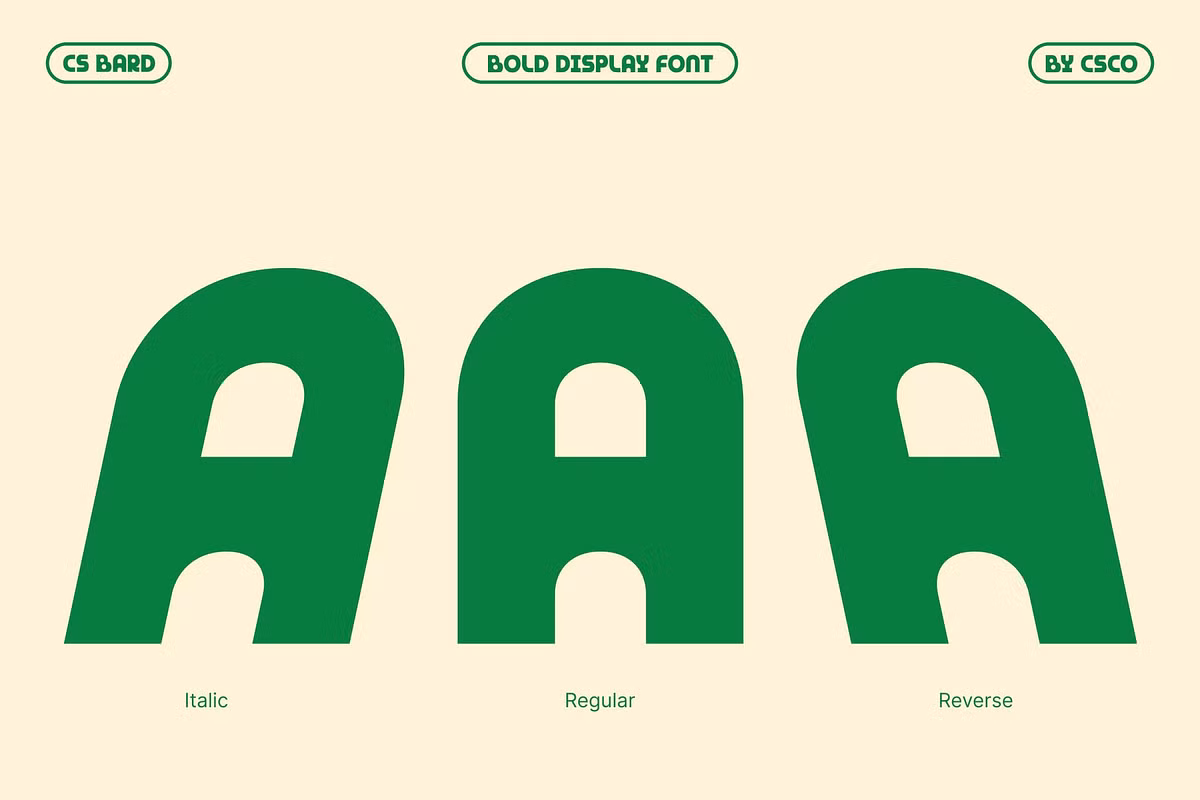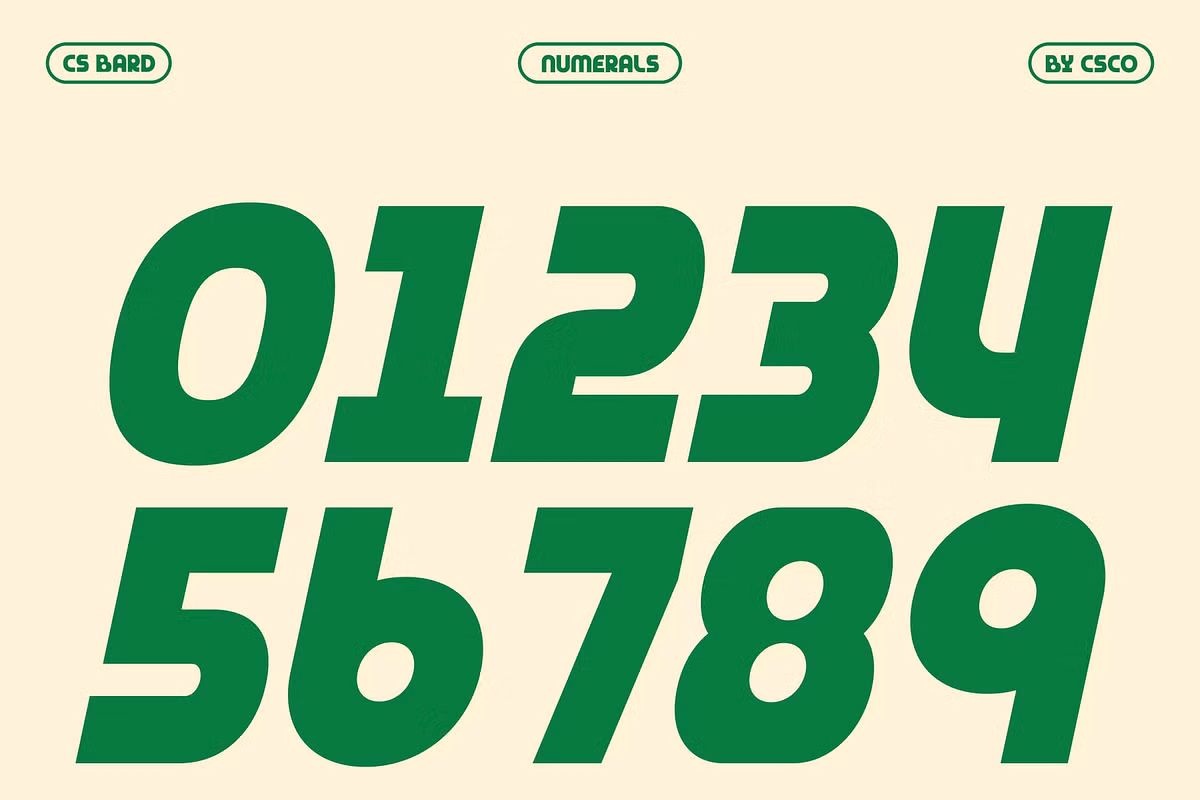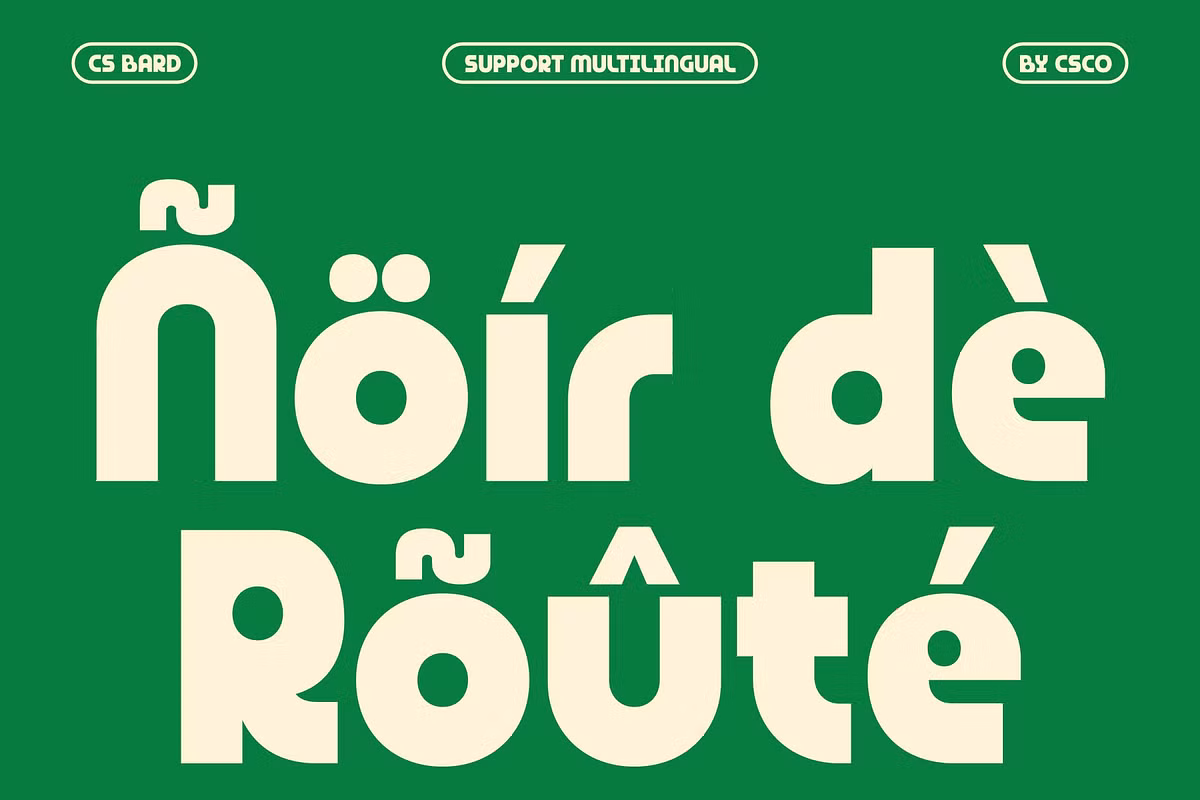
CS Bard: Bold Display Font for Eye-Catching Creative Designs
Meet CS Bard, a super cool font that’s perfect for making a big impact in your designs. It’s got a really modern look, but it’s also lots of fun and playful, which makes it great for all sorts of creative projects. In this article, we’ll take a closer look at what makes CS Bard so special, including its design style, the characters it includes, and how you can use it in your work. We’ll also give you some tips on how to pair it with other fonts and what you need to know about licensing. By the end of it, you’ll be an expert on how to use CS Bard to make your designs really stand out.
Whether you’re working on a website, a poster, or something else entirely, CS Bard is a great choice if you want to grab people’s attention and make a lasting impression. Its unique style is sure to add some extra excitement to your project, and with its versatile character set, you can use it for all sorts of different things. So let’s dive in and learn more about this amazing font!
Design Style of CS Bard
The CS Bard design has a really bold and sturdy look that gives off a sense of confidence and personality. It’s got thick lines and geometric shapes that make it look super modern. This font is great for when you need to grab people’s attention right away, so it’s perfect for things like headlines, posters, and branding stuff. The way it looks is really striking, and it can add a lot of personality to your designs.
Whether you’re making a poster or a logo, CS Bard is a great choice if you want something that’s going to stand out and make a statement. CS Bard has a strong foundation, but it’s the little details that give it a fun and playful feel. These special touches add a lot of personality to the design, making it a great choice for projects that want to seem friendly and full of energy.
It’s perfect for designing things like fun events or professional campaigns, because it mixes being bold with being easy to get along with.
Character Sets and Features
CS Bard comes equipped with a variety of character sets and features that enhance its usability and versatility. The font includes:
- Uppercase and lowercase characters
- Numerals and punctuation (OpenType Standard)
- Accents, supporting multilingual characters
- PUA encoding for ease of use
With CS Bard, designers have everything they need to create a wide range of designs that are inclusive and diverse. It doesn’t matter if you’re making content for people in your local area or for a global audience, CS Bard has the tools to help you get the job done. This means you can focus on making great content that works for everyone, no matter where they’re from.
Use Cases for CS Bard
CS Bard is really good at a lot of things, which makes it perfect for many different creative projects. Let’s take a look at some of the best ways to use it.
- Product Packaging: CS Bard is a great choice for product packaging because it’s bold and really grabs your attention. This makes it perfect for labels and packaging designs that need to stand out in a crowded store.
- Social Media Graphics: Use CS Bard for headlines and promotional content on platforms like Instagram and Facebook to grab attention and engage your audience.
- Editorial Layouts: Incorporate CS Bard into magazine spreads or online articles to create striking headlines that draw readers in.
This font is perfect for making your ads stand out, whether it’s on flyers, posters, or big banners. It gives your promotional materials a fresh and modern look that grabs people’s attention.
Pairing Suggestions for CS Bard
When working with CS Bard, pairing it effectively with other typefaces can elevate your overall design. Here are some pairing suggestions:
- Serif Fonts: Pair CS Bard with a classic serif font like Georgia or Times New Roman for a sophisticated look. The contrast between the bold display and traditional serif adds depth to your designs.
- Sans-Serif Fonts: Combine CS Bard with a clean sans-serif font like Helvetica or Arial for a modern and minimalist aesthetic. This combination works well in professional settings.
- Script Fonts: If you want to add a touch of fun and playfulness to your design, try pairing CS Bard with a script font like Pacifico or Great Vibes. This combo works really well for things like invitations or when you’re creating a brand that’s all about being creative.
Trying out different combinations can really help you strike the right balance that matches the bold feel of CS Bard and boosts the overall look of your project. You can play around with various pairings to see what works best and creates a visually appealing effect.
Whether you’re working on a big corporate project or something more creative, CS Bard is the perfect choice if you want to create designs that really grab people’s attention and stick in their minds. It’s all about making your message stand out and really resonate with the people you’re trying to reach. So why not give your designs a boost with CS Bard – you won’t regret it!